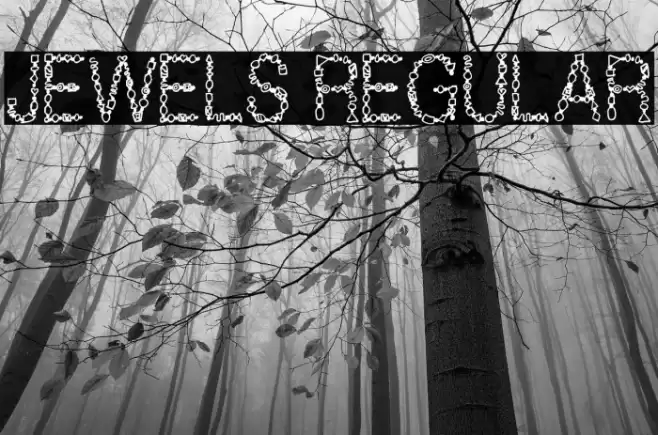
Jewels Regular Font
Jewels Regular Description
This font is a decorative and playful typeface that features characters composed of various jewel-like shapes. Each letter is intricately designed with a combination of circles, ovals, and other geometric forms that resemble gemstones. The overall appearance is whimsical and eye-catching, making it suitable for creative and artistic projects. The font maintains a consistent structure across all characters, ensuring readability while still offering a unique visual appeal. Its intricate detailing makes it stand out, perfect for designs that require a touch of elegance and creativity.
A decorative font with characters made of jewel-like shapes, offering a whimsical and artistic style from Decorative fonts.
- Proposed Projects: Ideal for jewelry branding, fashion magazines, wedding invitations, and creative art projects.
- Use Case: Logos, Headlines, Artistic projects